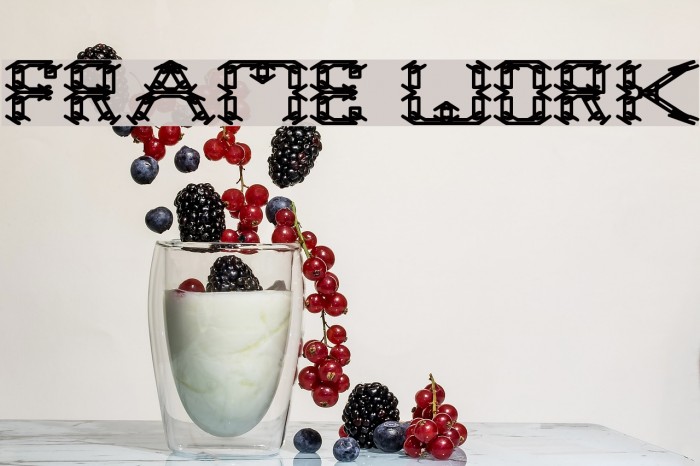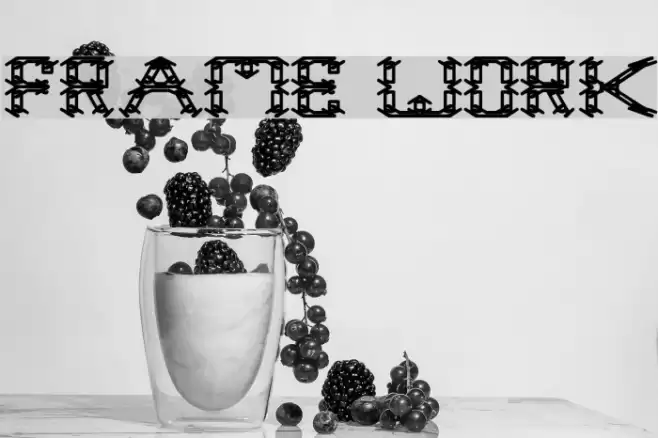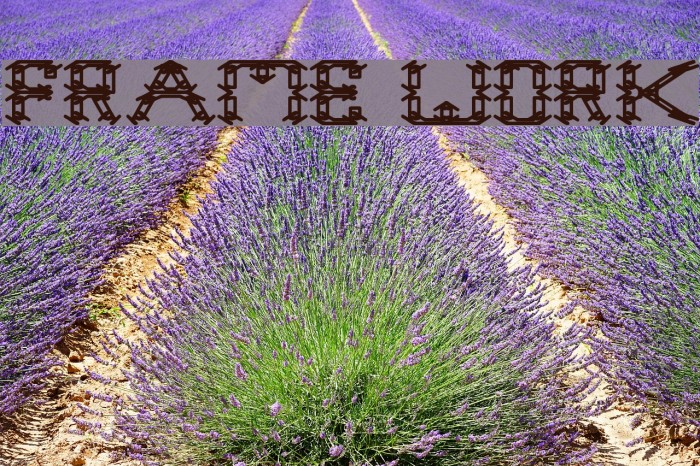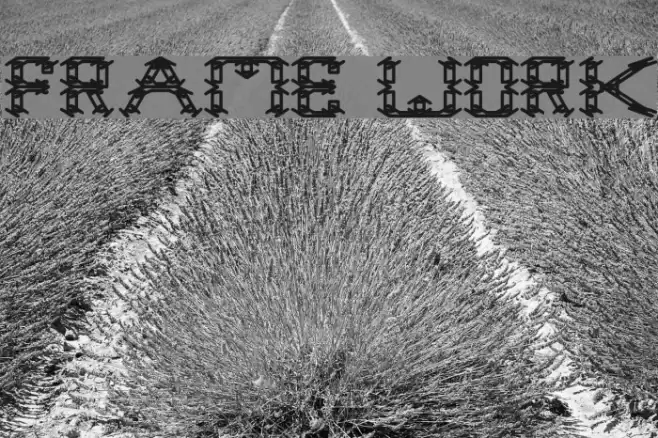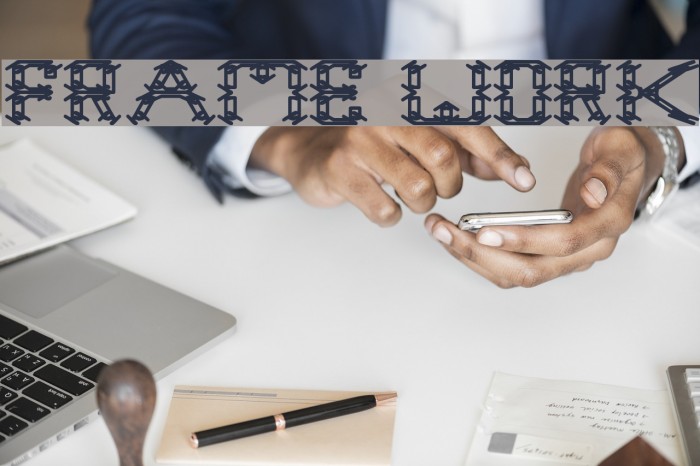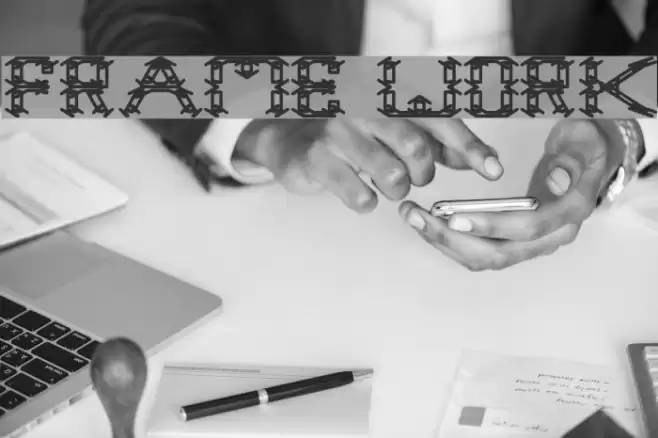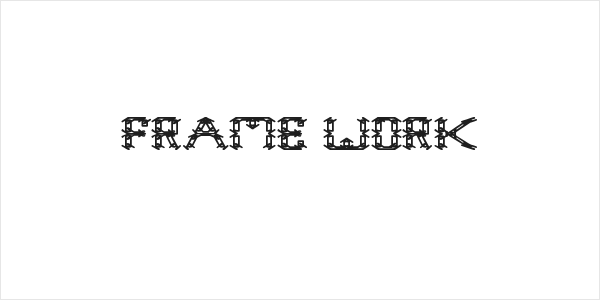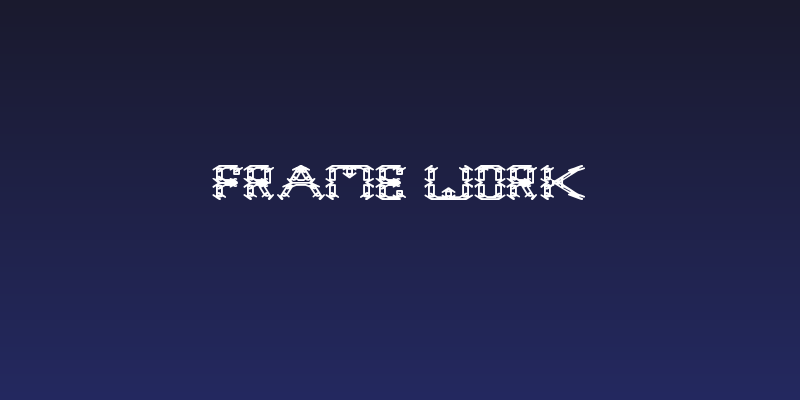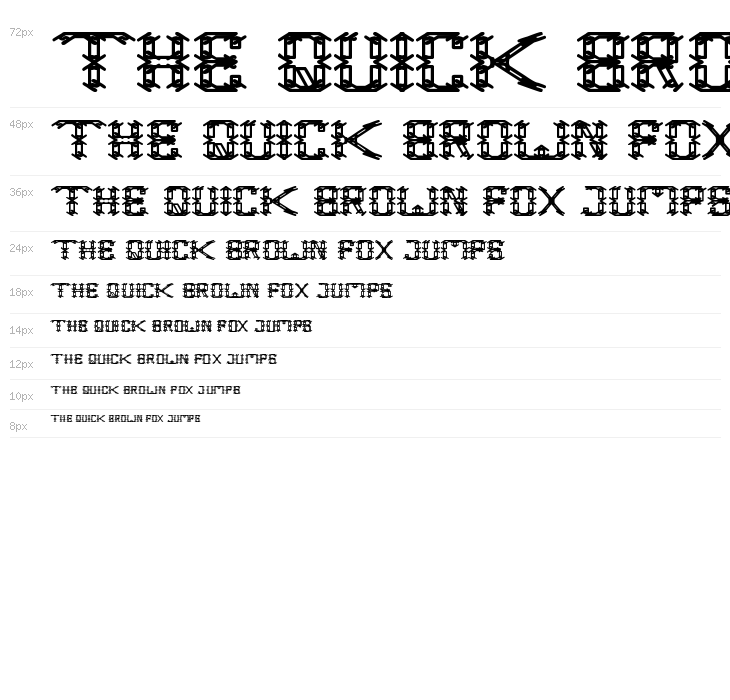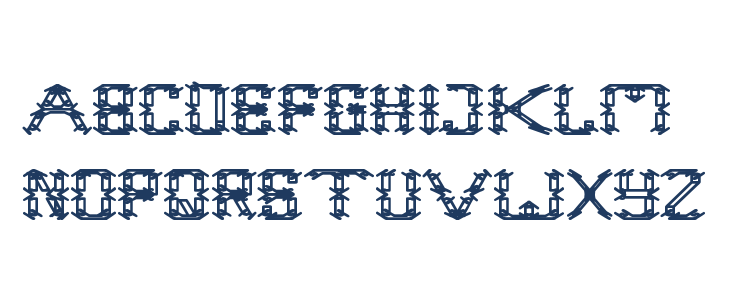
frame work Font
frame work Description
This font features a highly decorative and intricate design, reminiscent of industrial or mechanical elements. Each character is composed of complex, angular shapes that interlock, giving the appearance of a framework or scaffolding. The style is bold and eye-catching, with a strong emphasis on geometric patterns and symmetry. The font's unique structure makes it stand out, suitable for projects that require a distinctive and memorable typeface. Its detailed design suggests a modern yet industrial aesthetic, perfect for creative and unconventional uses.
| Overall Style | Modern, Industrial |
| Proposed Projects | Ideal for branding, posters, album covers, or any project needing a bold, industrial aesthetic. |